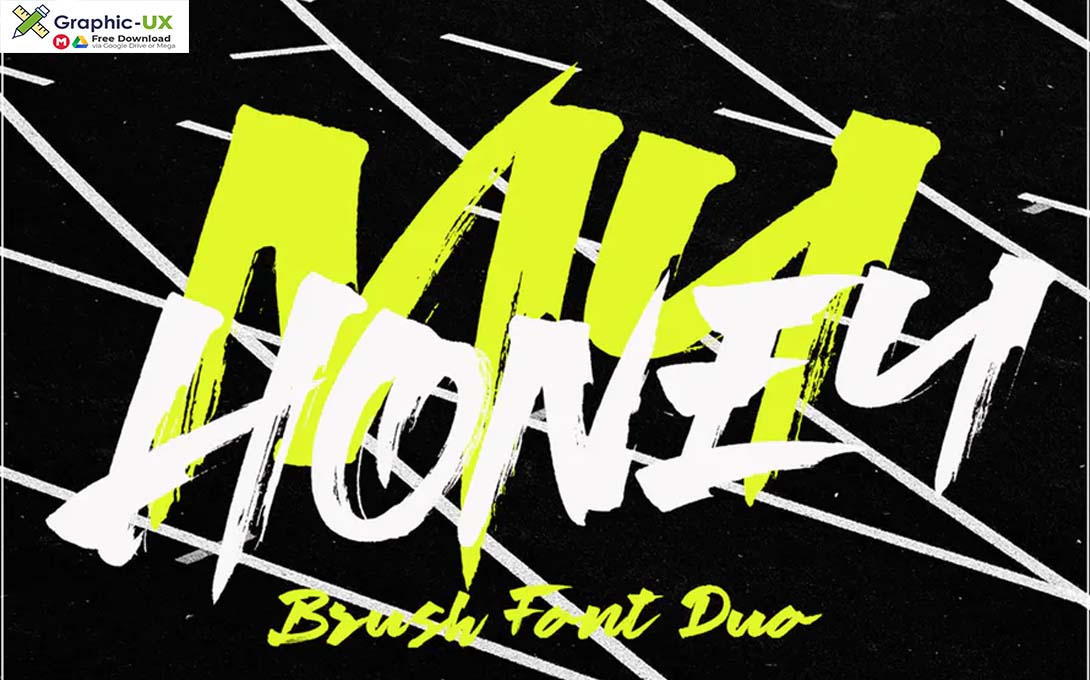
Free My Honey Font Duo Negro Free Typography Fonts
My honey font duo negro. One in each of that may be a demo version is to be had or in. This wonderful extremely good font has come enormously in the regular range but this fashionable style has possessed like of blow brush. Download typeface my honey duo free. Our site is great except that we dont support your browser.
My honey brush font duo 20955832 otf 2 ttfmy honey is modern brush font with modern style this font will perfect for many different project ex. This website is aiming to be the first choice for finding free korean fonts be sure to come back often for more latest korean fonts. Quotes logo blog header poster wedding banding fashion apparel letter invitation stationery etc. Download my honey font duo fonts by pineungtype.
My honey brush font duo. My honey font duo font november 1 2019 fonts 59 views my honey is modern brush font with modern style this font will perfect for many different project ex. So itll without problems be a difficult and rapid up in any form of strolling tool. There are forms of markets.
My honey is modern brush font with modern style this font will perfect for many different project ex. My honey brush font duo 2095583 2 otf 2 ttf my honey is modern brush font with modern style this font will perfect for many different project ex. Details my honey is modern brush font with modern style this font will perfect for many different project ex. Subscribe and download now.